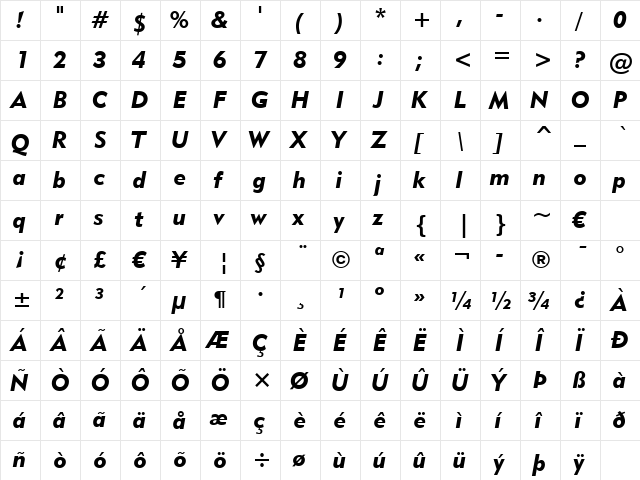
Geometr415 Blk BT Black Italic
Geometr415 Blk BT offers clean, dependable letterforms without strong stylistic allegiance, making it a practical choice for designers who need flexibility. Its italic angle brings a sense of urgency and motion to the letterforms.
Pro Tip: Use Geometr415 Blk BT for emphasis, pull quotes, and subheadings where its slanted energy can add rhythm to the layout.